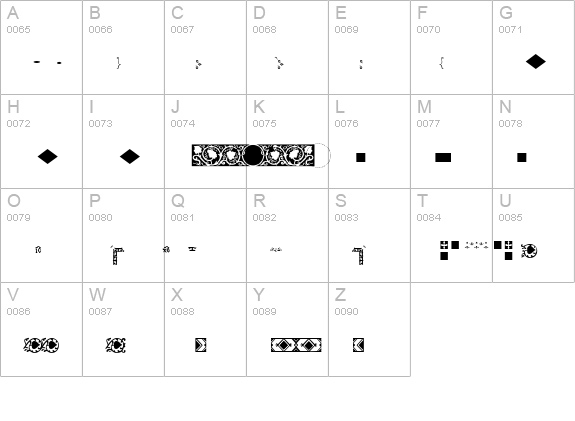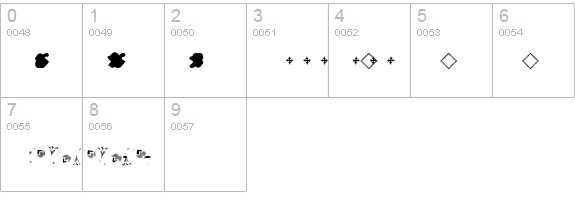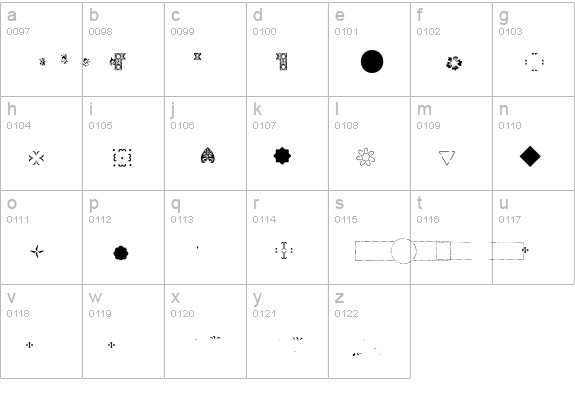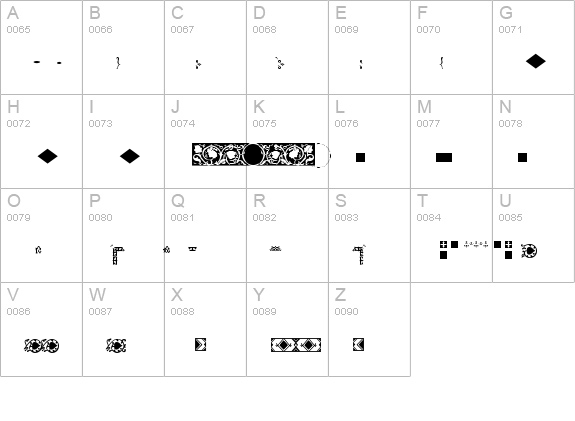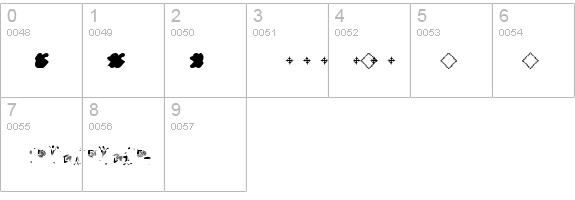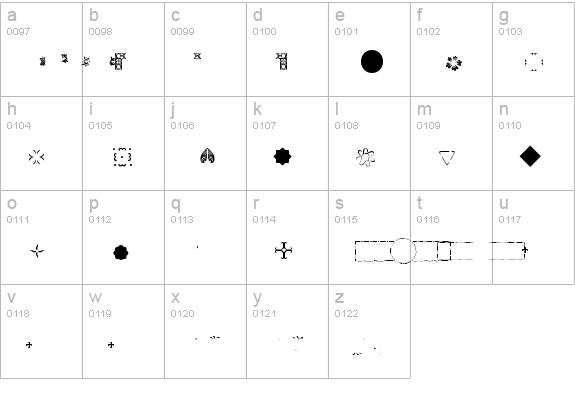
PFOrnmTreasures2-Layer3 font is a captivating and intricate typeface that exudes elegance and sophistication. With its ornate design and detailed layers, this font is perfect for adding a touch of luxury to your projects. The delicate swirls and flourishes of PFOrnmTreasures2-Layer3 font make it ideal for invitations, greeting cards, and other special occasions where a touch of beauty is needed. What makes PFOrnmTreasures2-Layer3 font even more appealing is that it is available for free download at FontsMarket.com. This means you can easily add this stunning font to your collection without any cost. Whether you're a designer looking to elevate your work or someone looking to add a touch of glamour to your personal projects, PFOrnmTreasures2-Layer3 font is the perfect choice. Download it today and start creating eye-catching designs that will impress everyone who sees them.